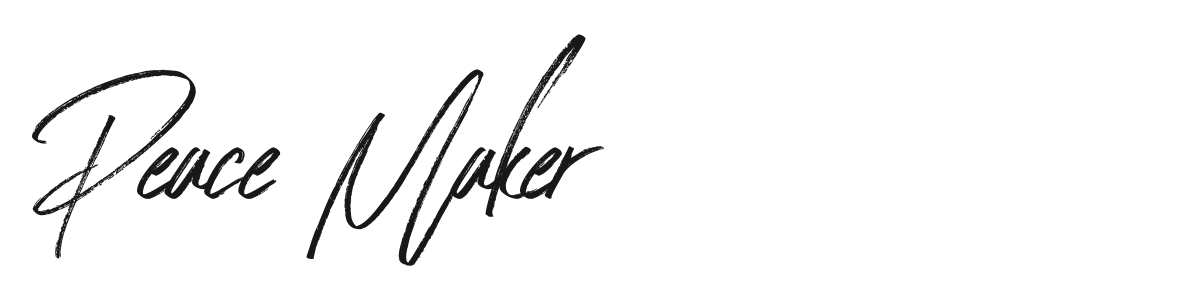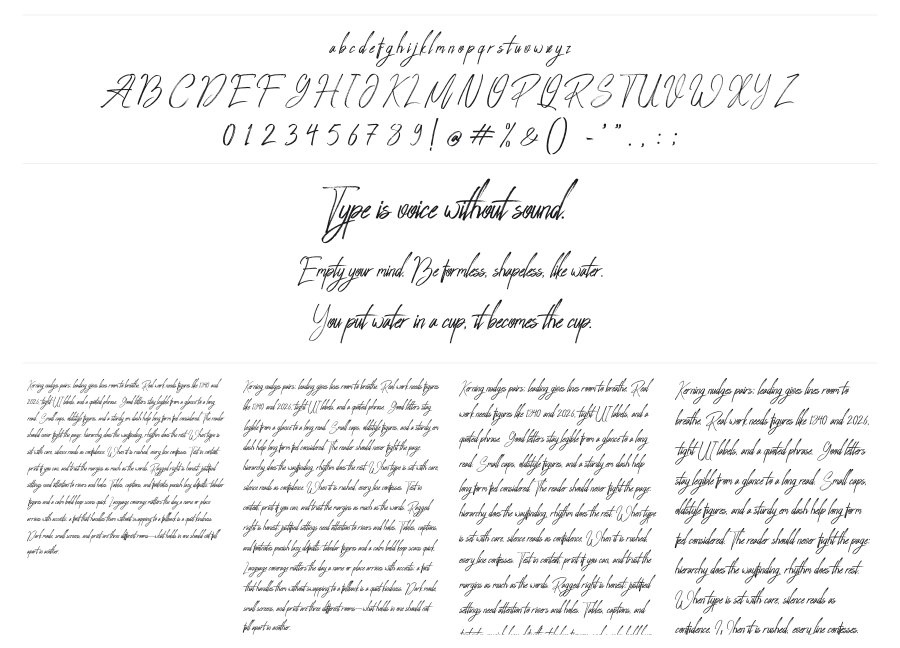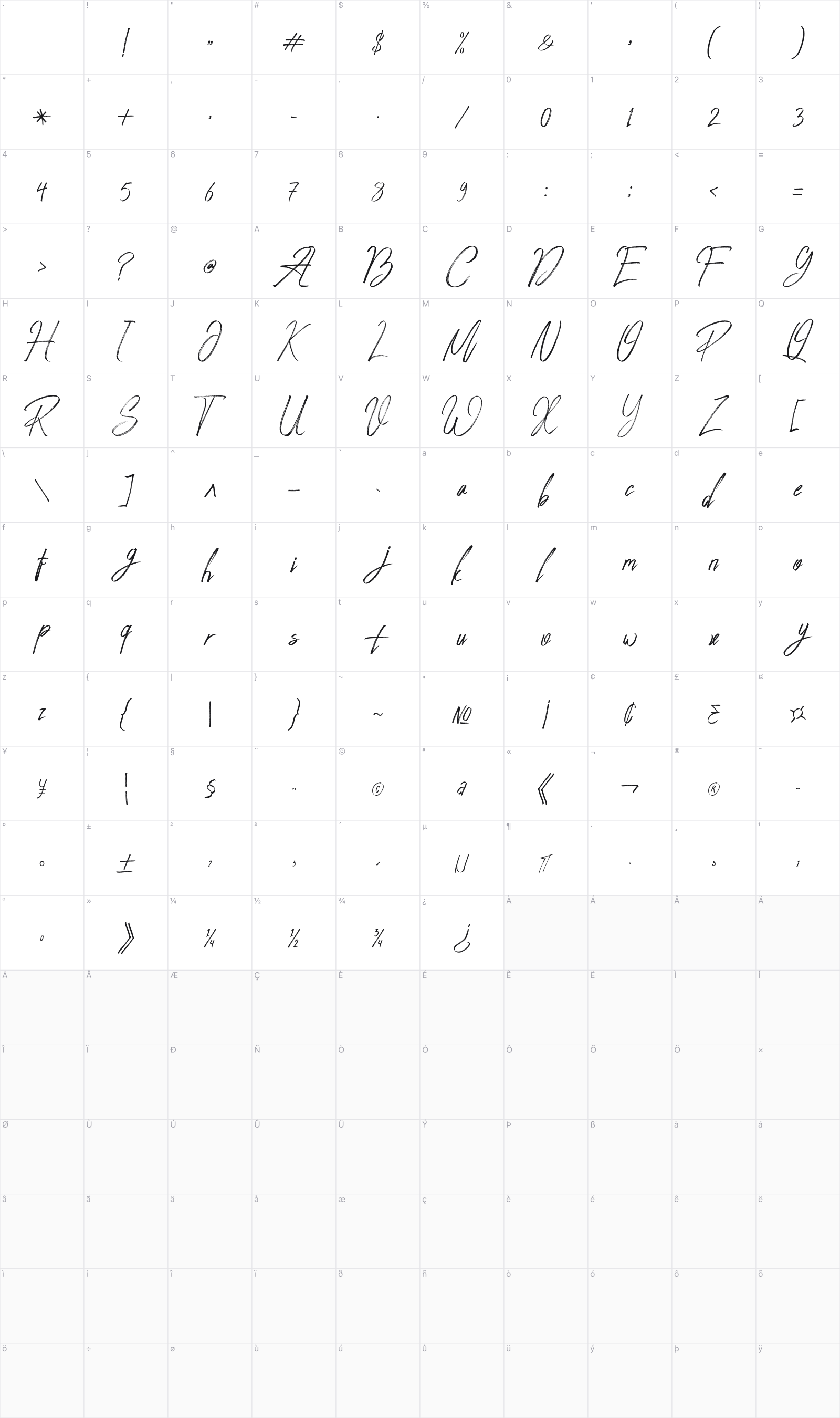
Peace Maker
Peace Maker is a rough brush script with the energy of a quickly dashed signature. Thick downstrokes split into hairline tendrils with frayed ink edges, giving each letter a raw, textured feel that no digital polish can replicate. It fits anywhere a design needs authenticity, attitude, or a handmade edge.